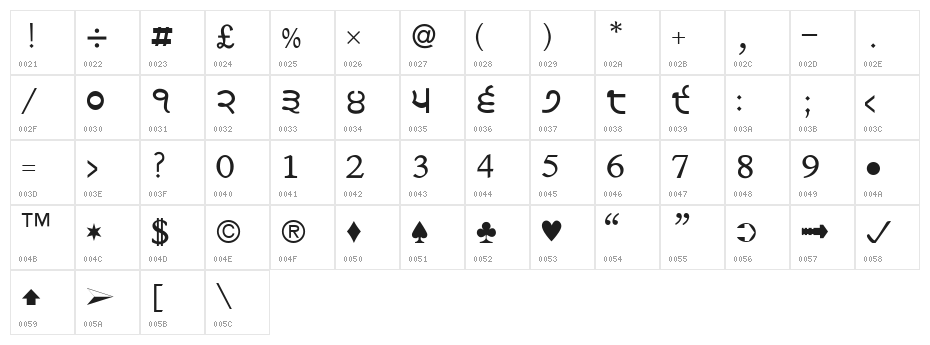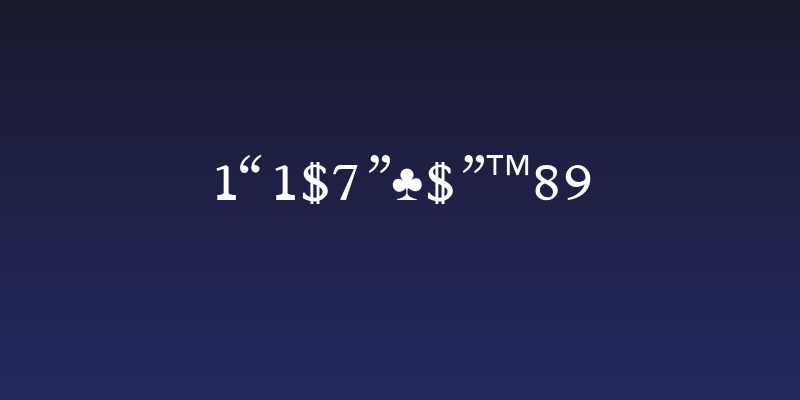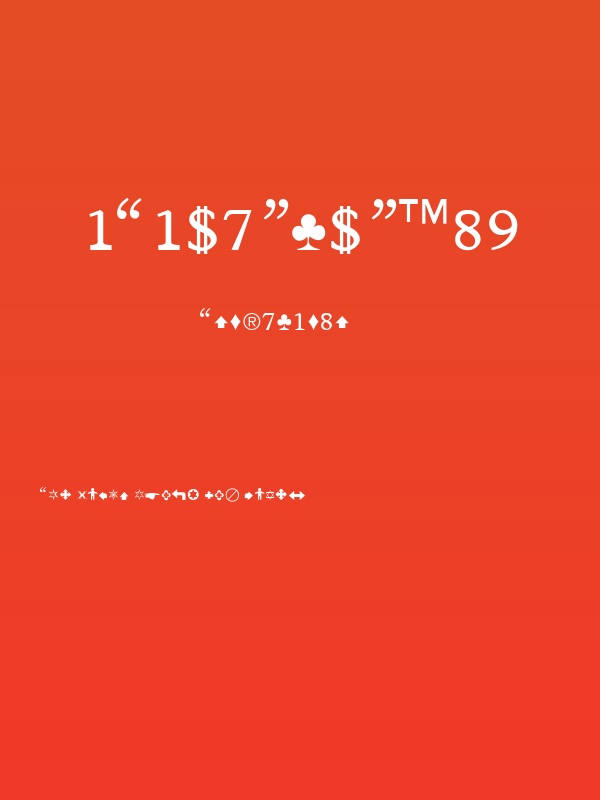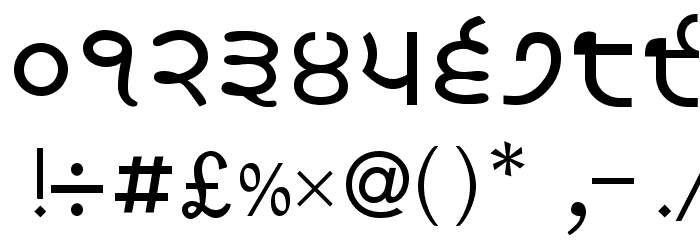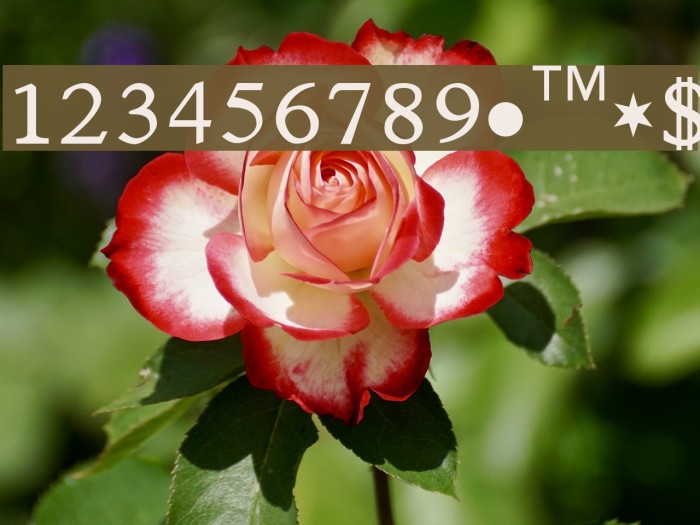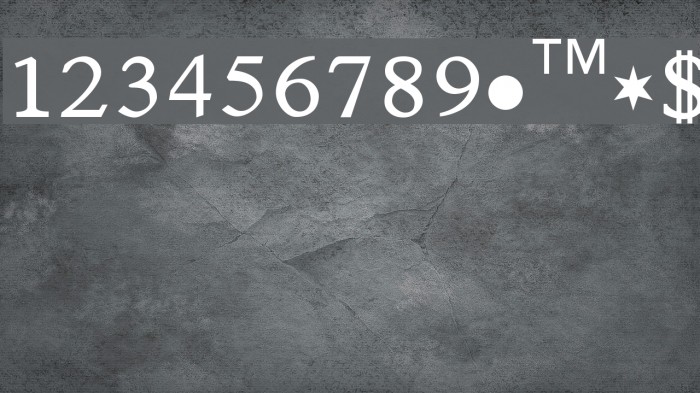
AtamGurmukhi Font
AtamGurmukhi Description
This font is a decorative and playful typeface that incorporates a variety of symbols and icons alongside traditional alphanumeric characters. The numbers are bold and clear, with a slight curvature that adds a touch of whimsy. The symbols range from geometric shapes to arrows and icons, providing a wide array of visual elements that can be used creatively. The overall style is modern and versatile, suitable for projects that require a unique and engaging visual appeal. The characters are evenly spaced, ensuring readability while maintaining a distinctive look.
| Proposed Projects | Ideal for creative projects like posters, graphic design, educational materials, and playful branding. |